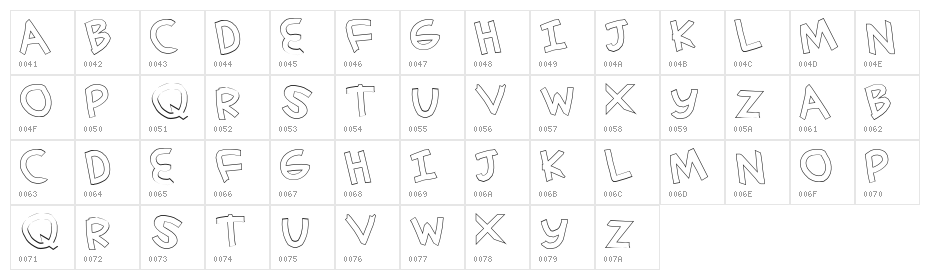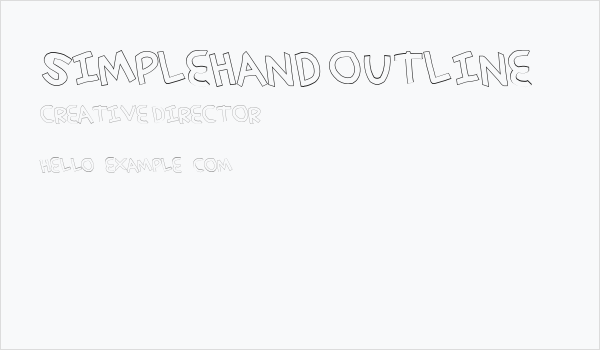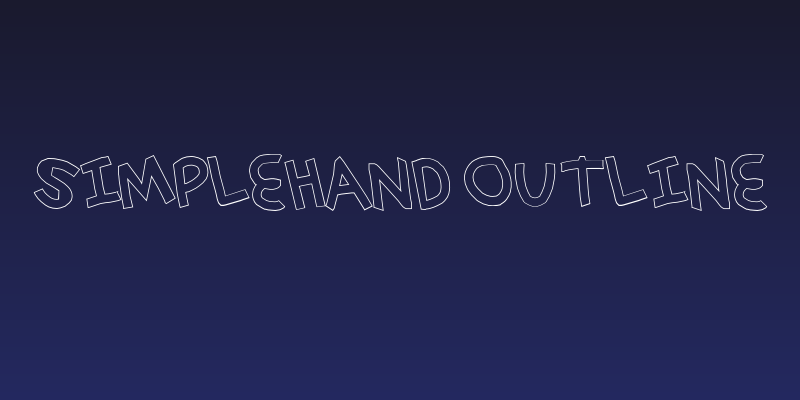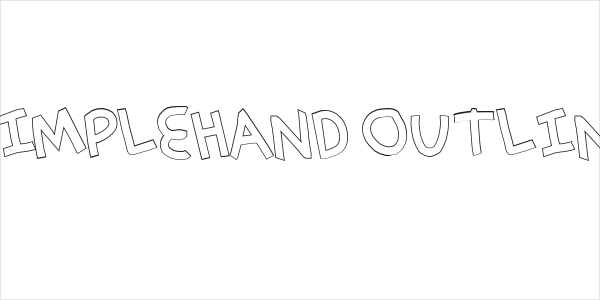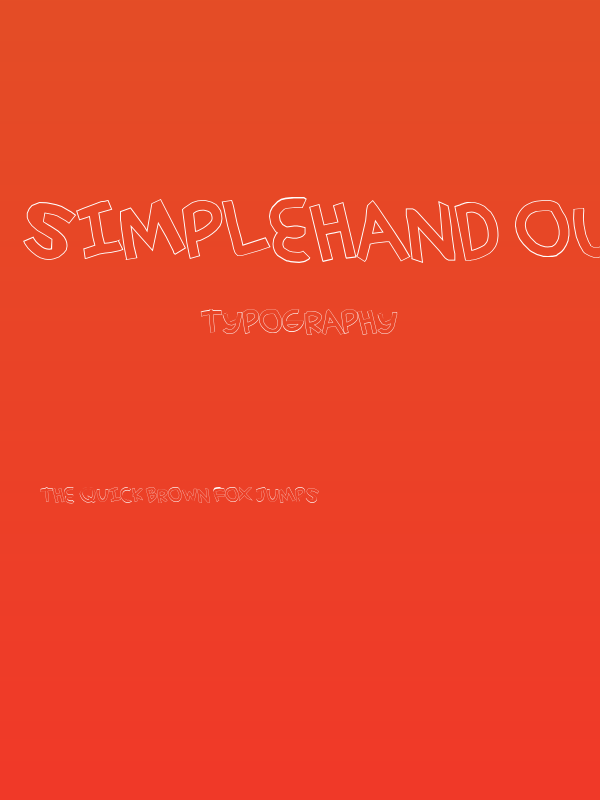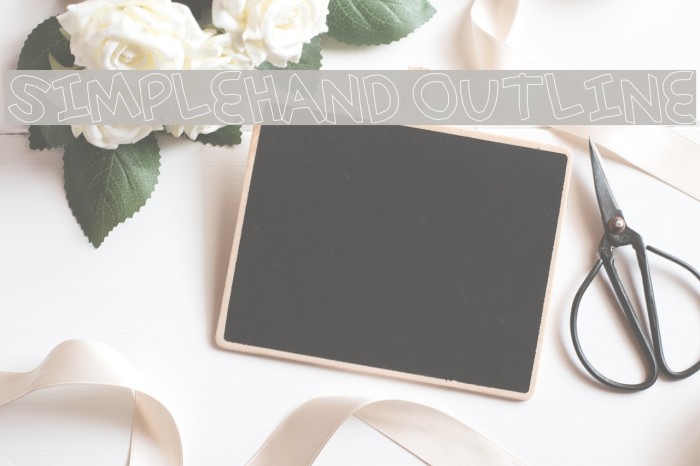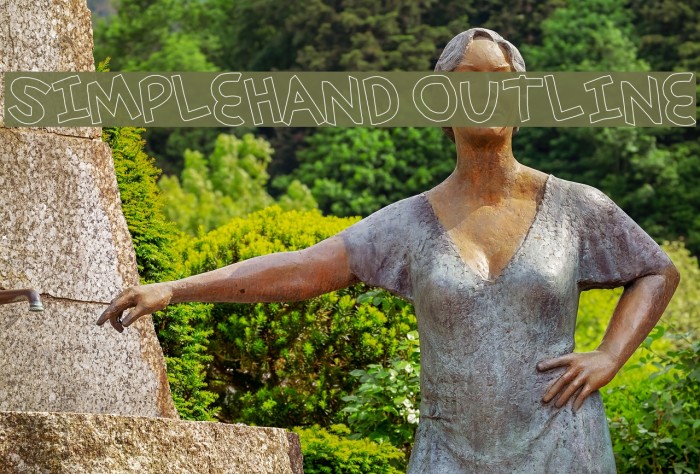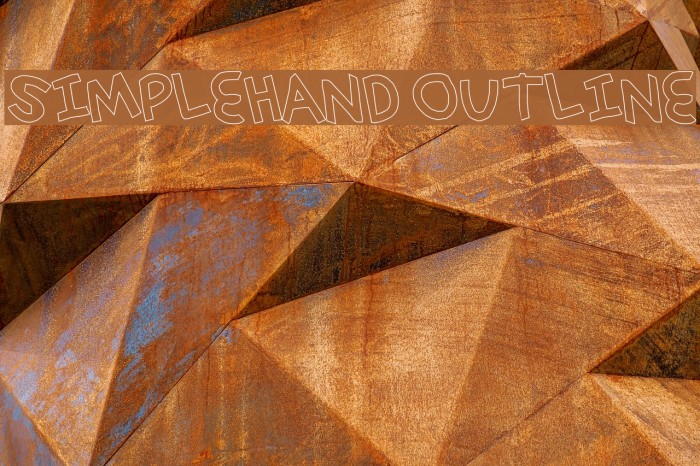
simplehand outline Font
simplehand outline Description
This font features a playful, hand-drawn style with an outline effect. Each character is crafted with a casual, whimsical touch, making it ideal for projects that require a fun and informal aesthetic. The letters are bold and have a consistent thickness, giving them a strong presence on the page. The outline adds an extra layer of visual interest, enhancing the font's overall appeal. The characters are slightly irregular, mimicking the natural flow of handwriting, which adds to its charm. This font is perfect for creative projects that aim to capture a lighthearted and approachable vibe.
| Overall Style | Playful, Whimsical |
| Proposed Projects | Ideal for children's books, greeting cards, posters, and playful branding. |